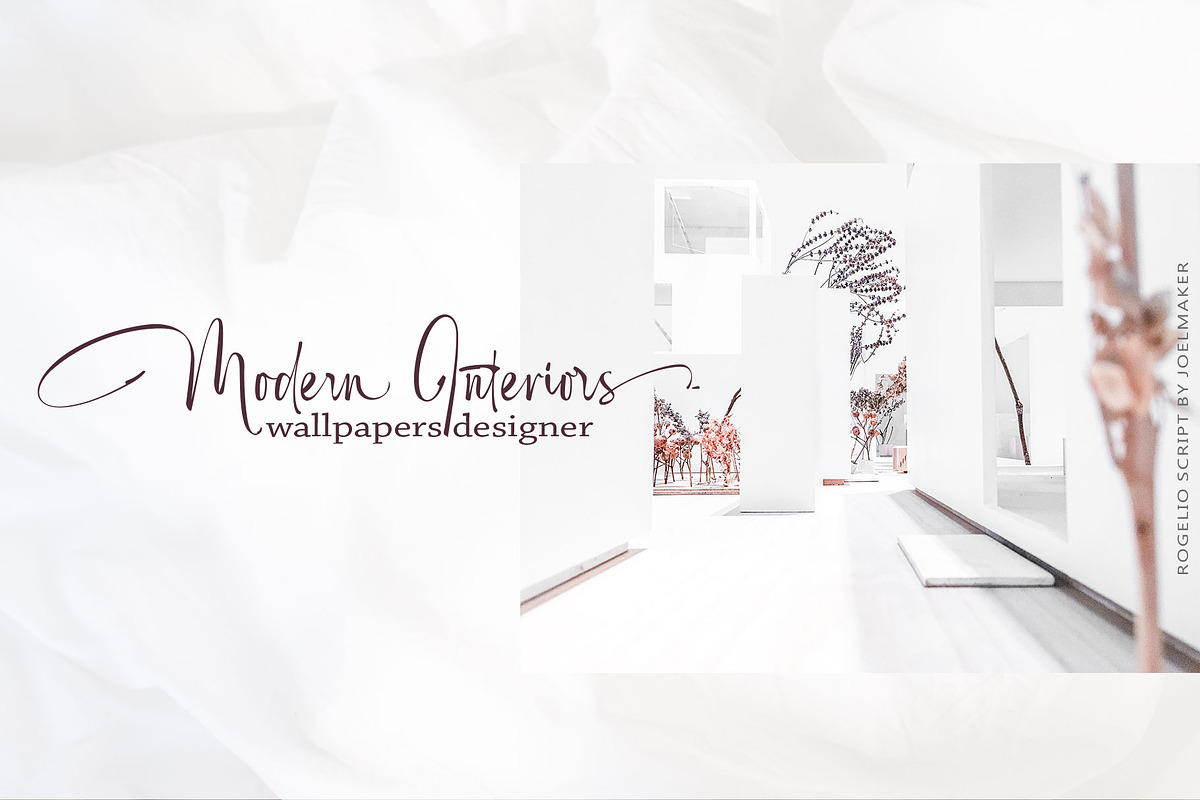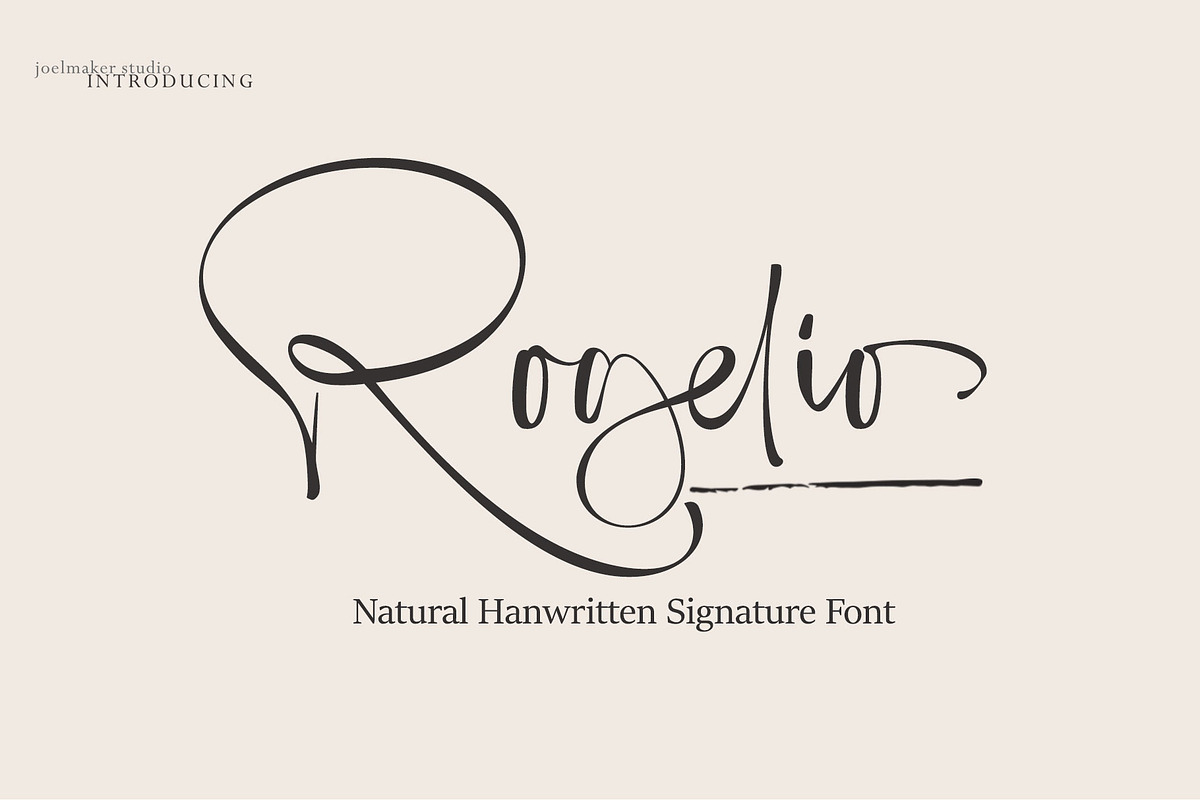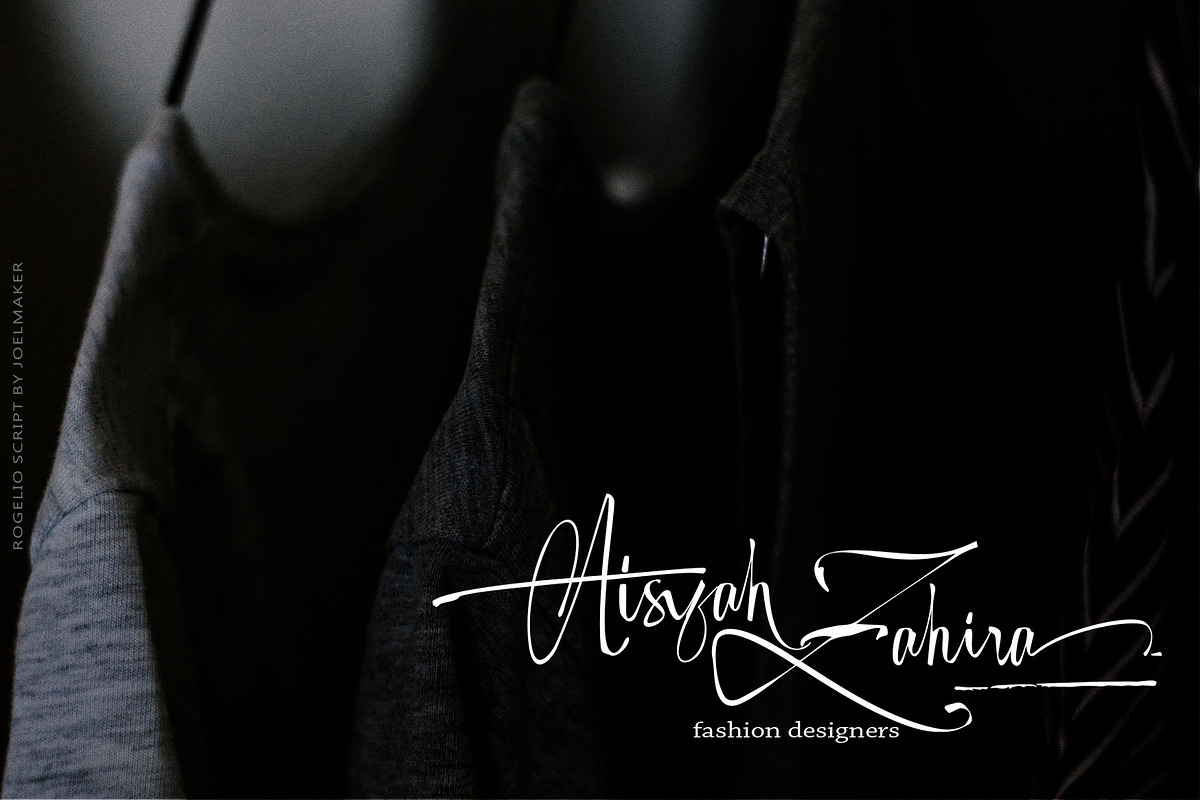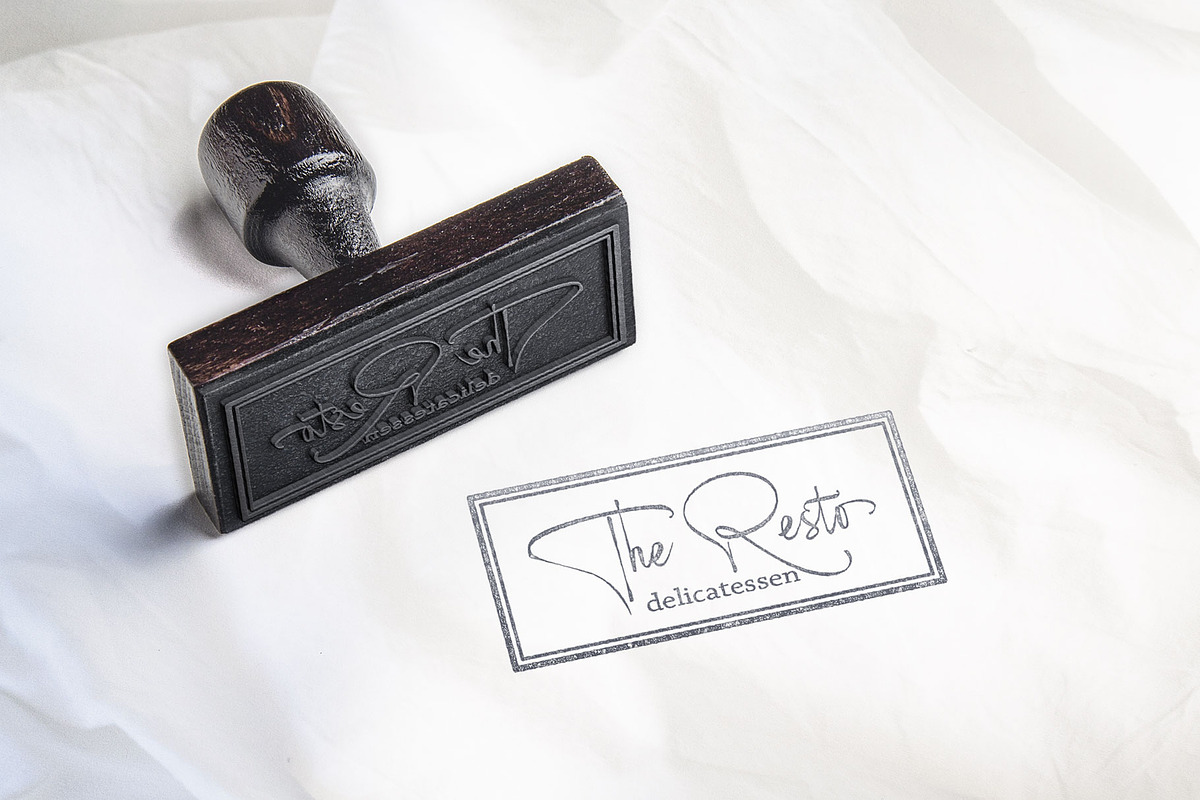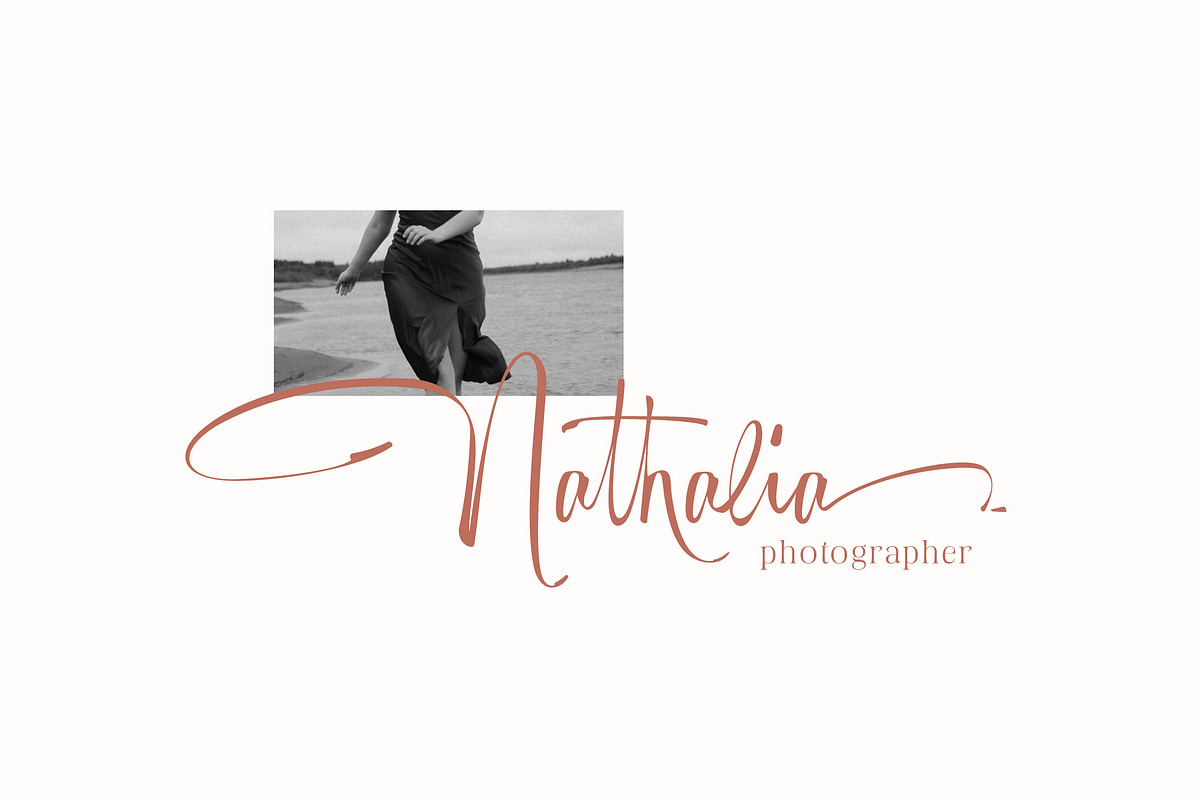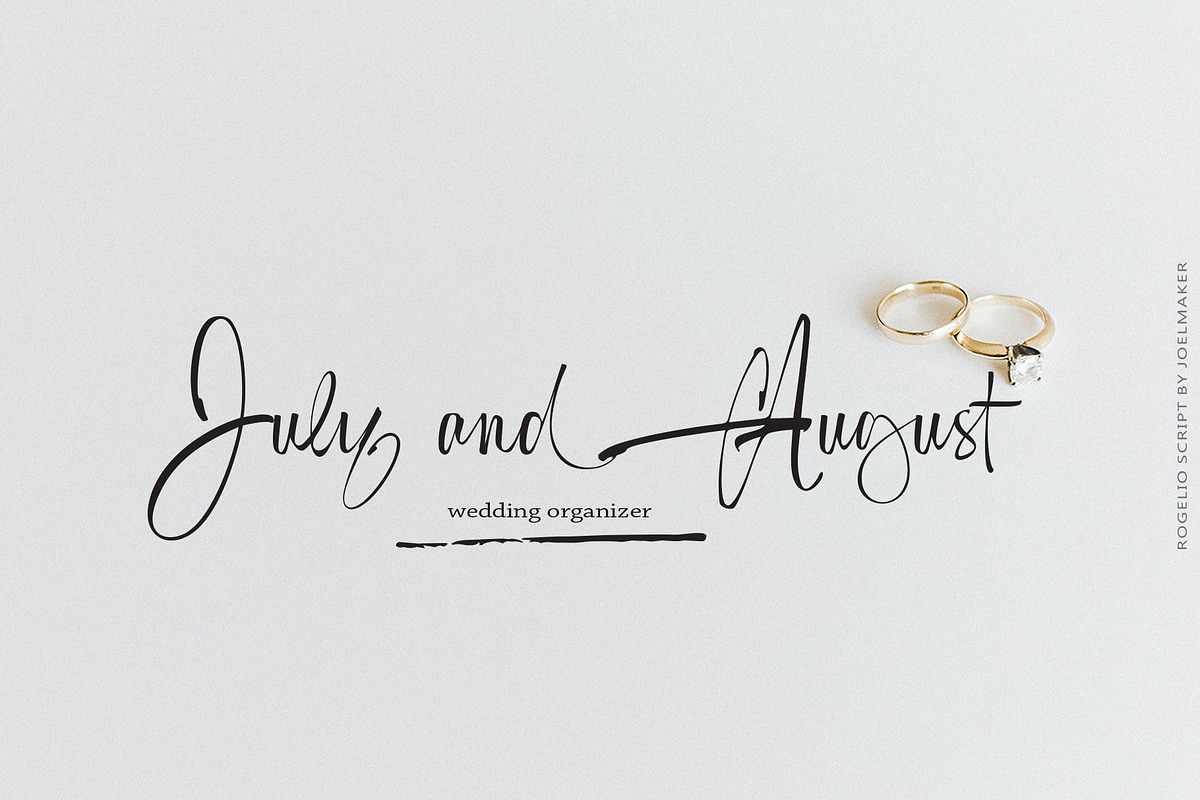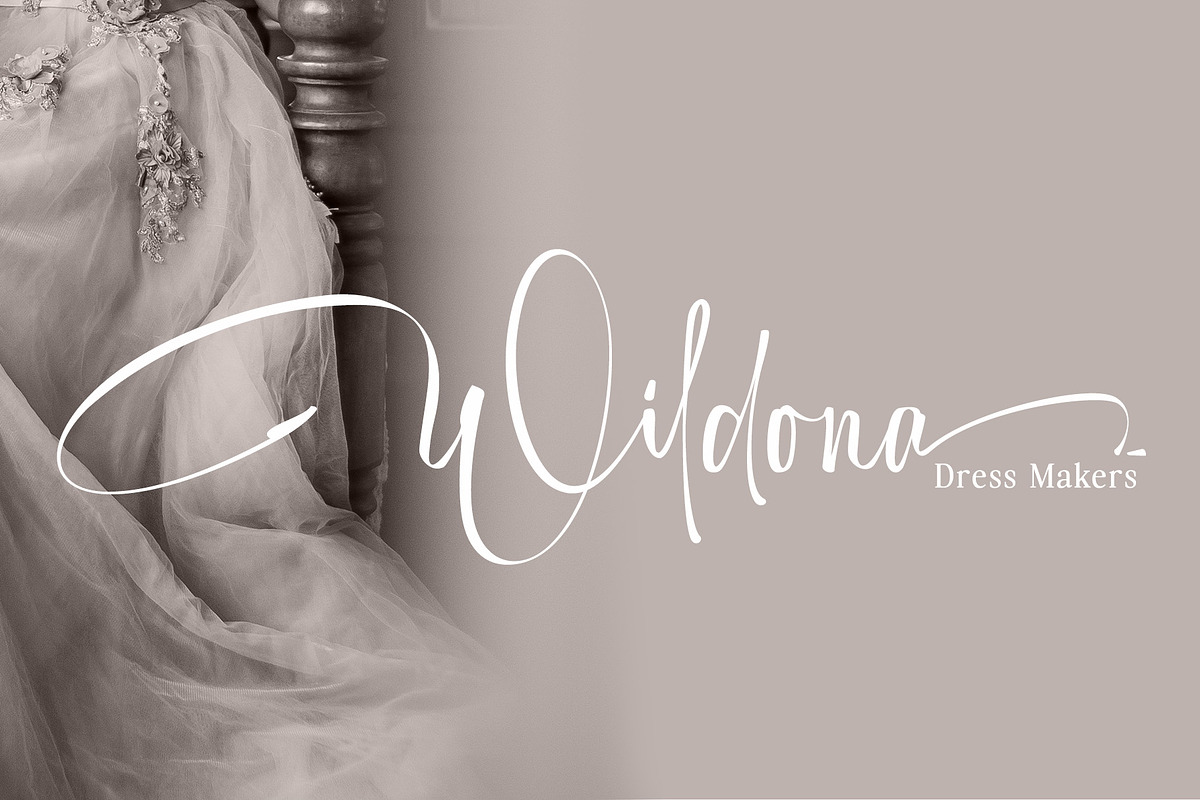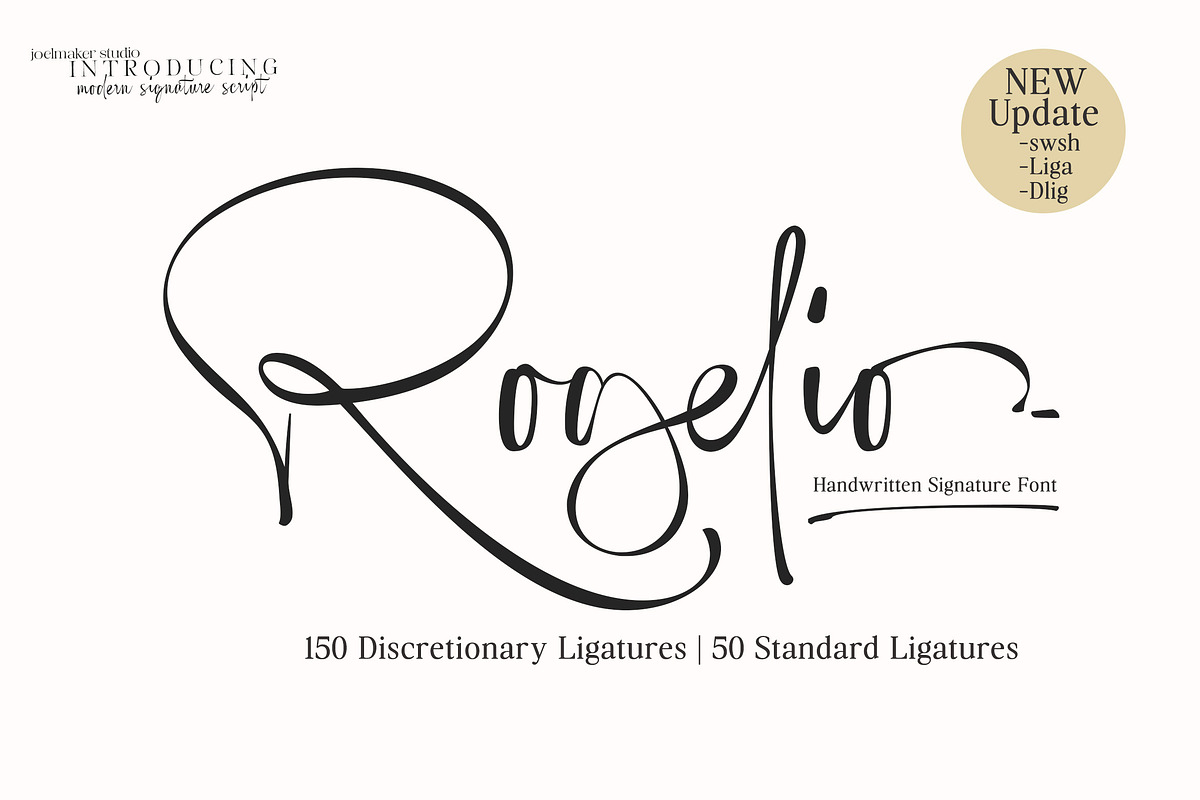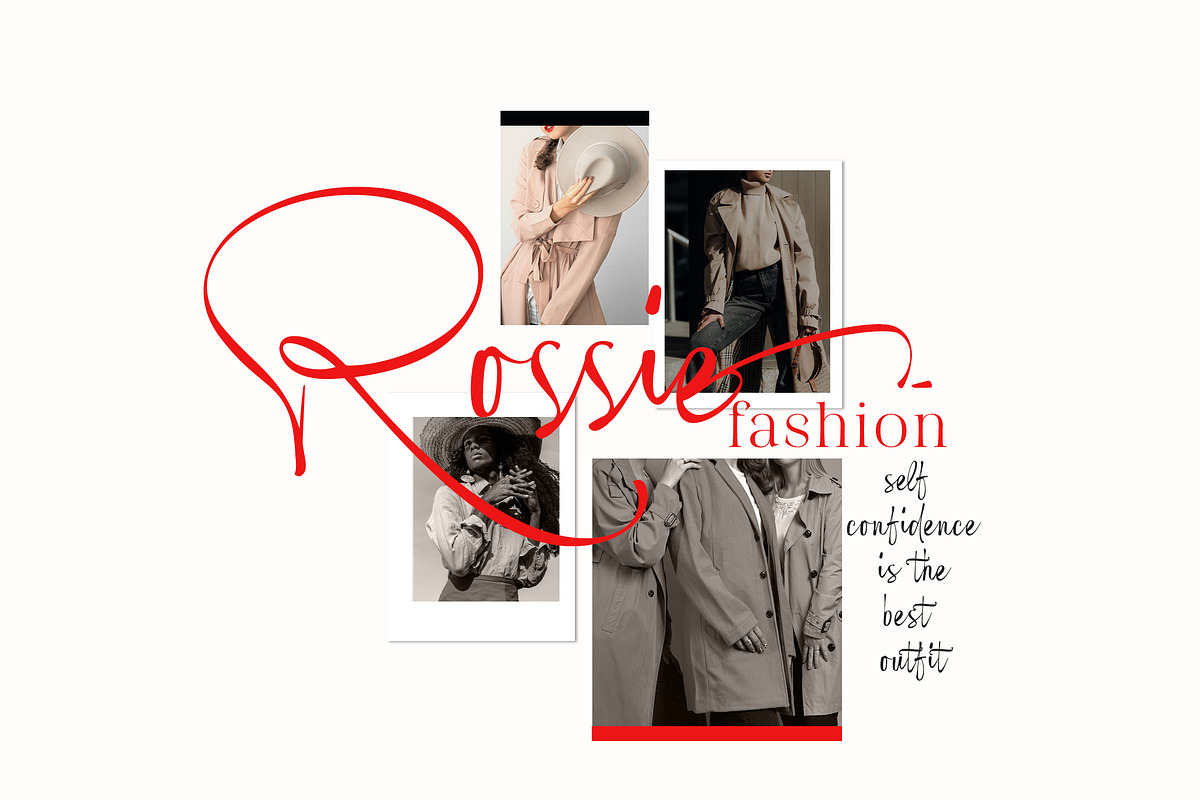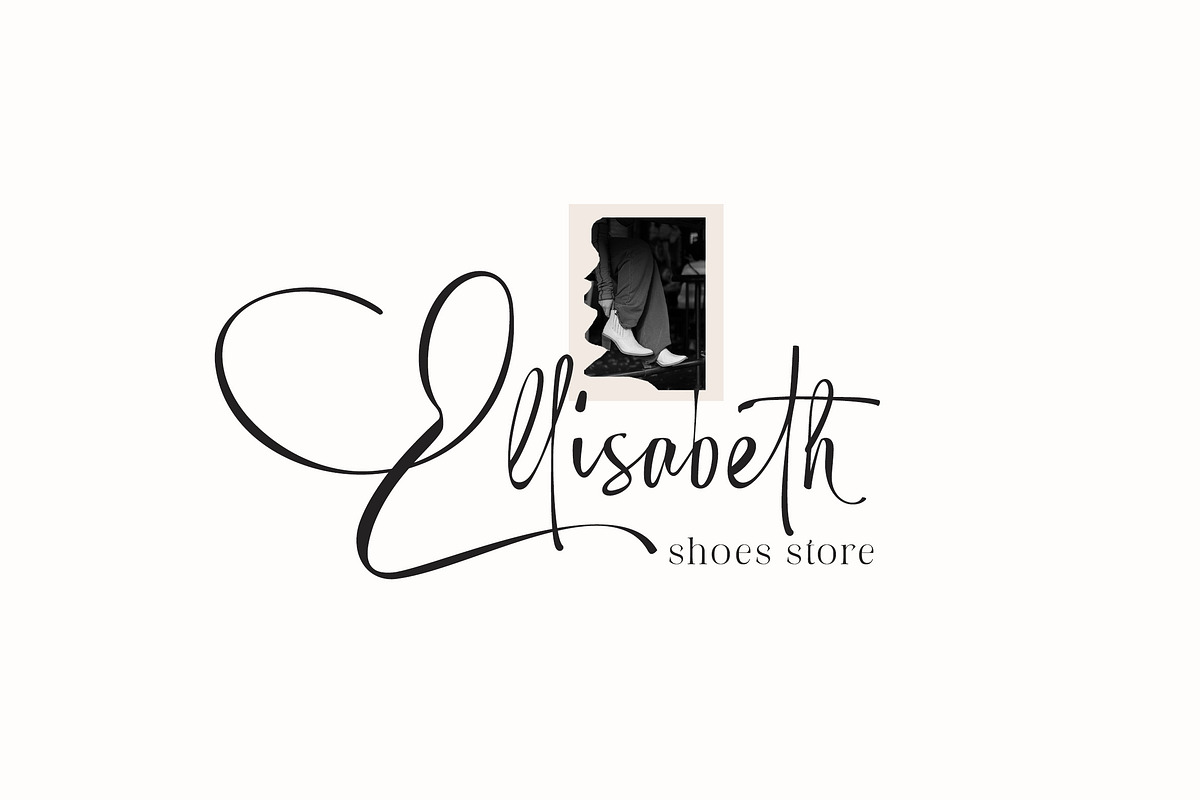
Rogelio Script
Rogelio – Signature Font
Rogelio is a modern handwritten signature script designed to capture the elegance and authenticity of natural handwriting. With its flowing strokes, graceful curves, and expressive letterforms, this font brings a personal and sophisticated touch to any design.
Featuring a perfect balance between bold and delicate lines, Rogelio stands out with its stylish swashes and smooth connections. It includes 146 discretionary ligatures and 46 standard ligatures, allowing you to create highly customizable and realistic handwritten text with ease.
Ideal for branding, logos, wedding invitations, social media, packaging, and editorial design, Rogelio adds a luxurious and artistic feel to your projects.